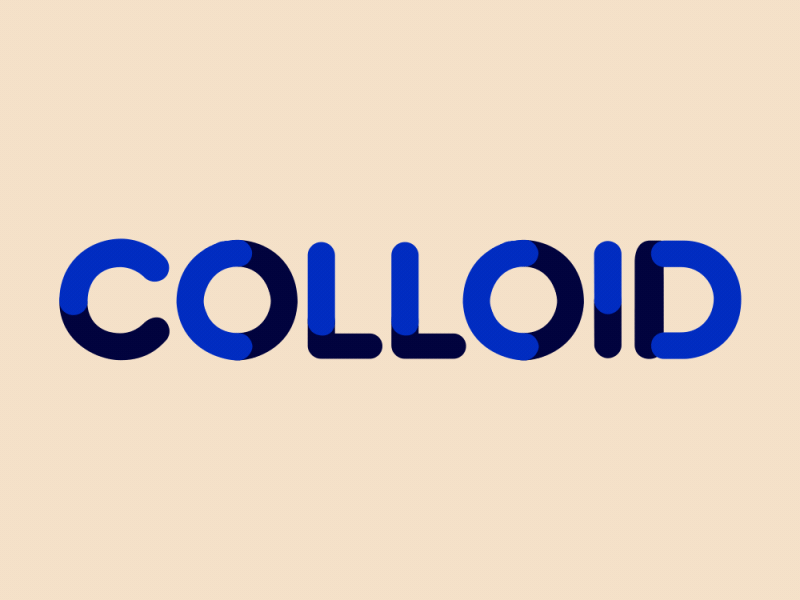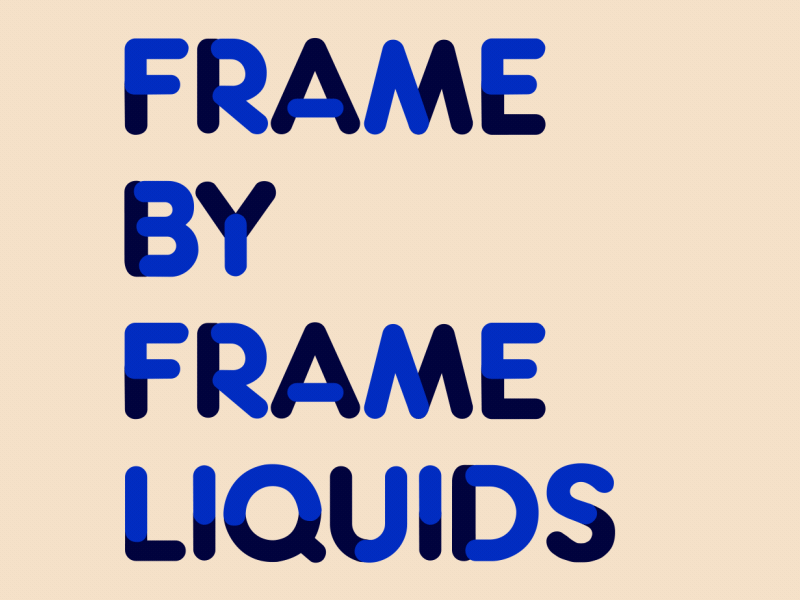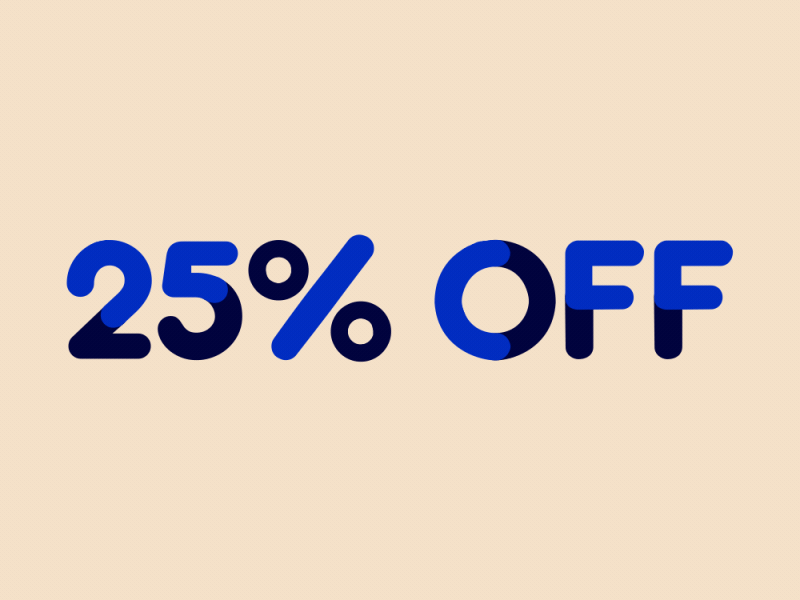
Colloid - Animated Typeface
We just released a new animated typeface called Colloid! Liquid type made from carefully crafted frame-by-frame animations. 💦